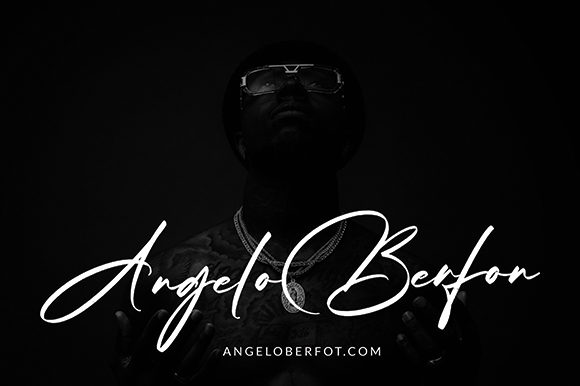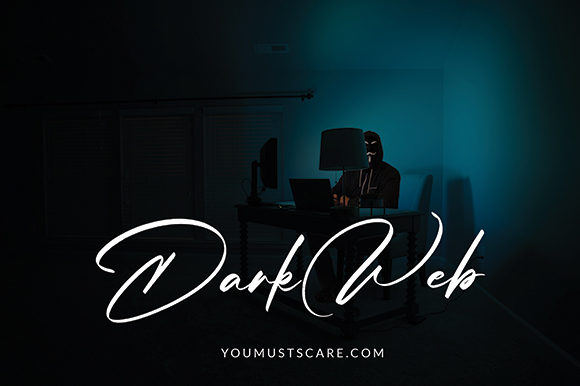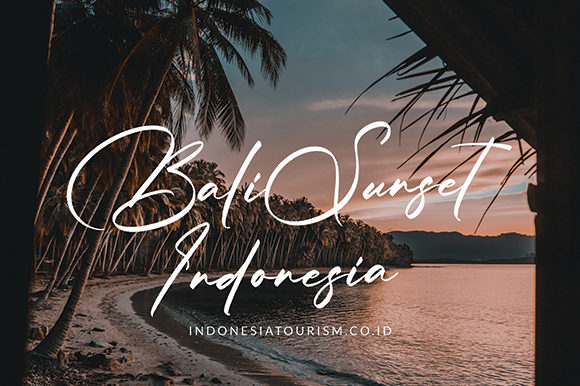
Introduction to Kidnatting Font
Have you ever been stuck on a creative project, searching for that perfect font to bring your vision to life? I know I have. The blank page stares back at me, taunting me with its emptiness, until suddenly, a spark of inspiration strikes, and I stumble upon the Kidnatting Font.
As a designer, I can attest to the importance of having a reliable design resource like the Kidnatting Font. With its elegant and beautiful handwritten script, it’s the perfect addition to any project that requires a touch of sophistication and whimsy. From wedding invitations to business cards, this font is sure to elevate your design game.
Key Features of Kidnatting Font
- Features a unique, modern design with a clean and minimalist aesthetic, ideal for use in logos, typography, and other graphic design applications.
- Includes a variety of font styles and weights, allowing designers to customize their creative project with precision and flexibility.
Honest Review: Kidnatting Font
Here are some things that work well: ✨ The font is available in various formats, making it easy to use across different platforms. The high quality of the font is evident in its crisp lines and smooth curves. The transparent background is a nice touch, allowing for seamless integration with other design elements.
Here are some limitations I encountered: ⚠️ The font selection is somewhat limited, with only a few styles to choose from. Additionally, the font doesn’t support some of the more exotic languages, which might be a problem for designers working on international projects.
Overall, I think the Kidnatting Font is a solid choice for designers looking for a high-quality, free font. While it may not be the most versatile option, it’s definitely worth considering for smaller projects or as a complement to other fonts in your design library.
- High-quality font with crisp lines and smooth curves
- Limited font selection
- No support for exotic languages